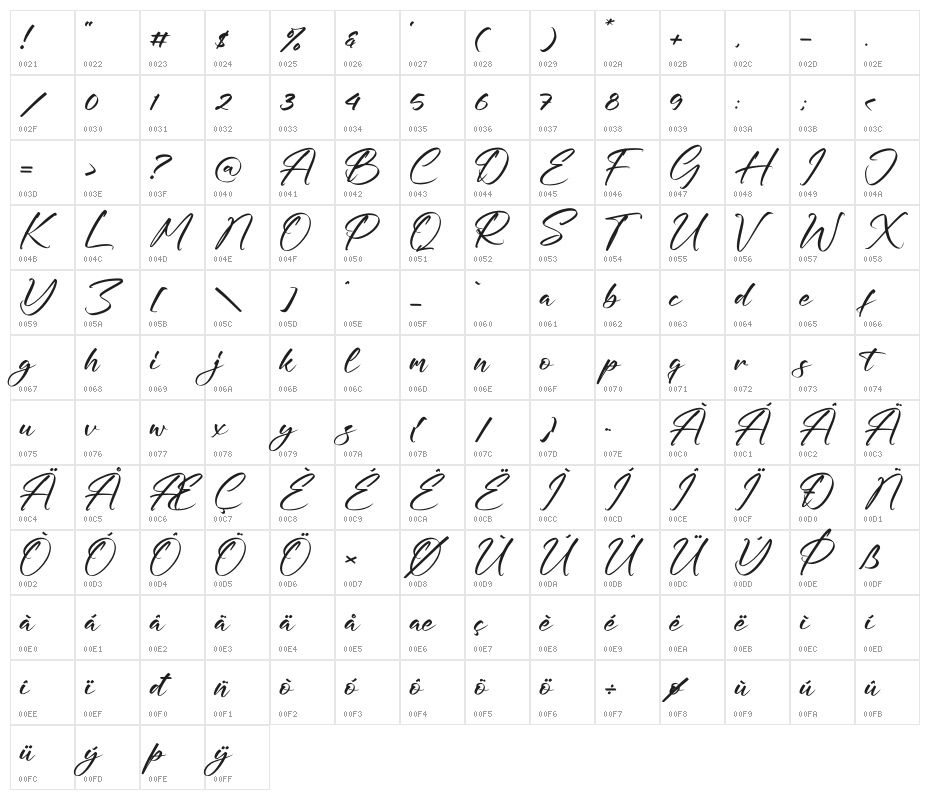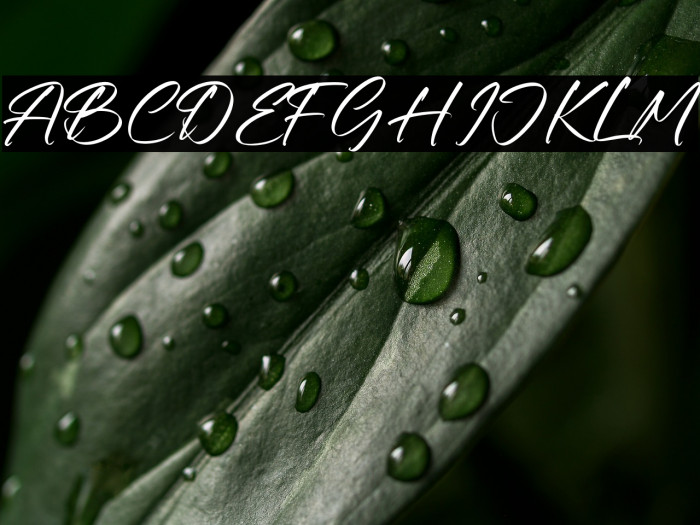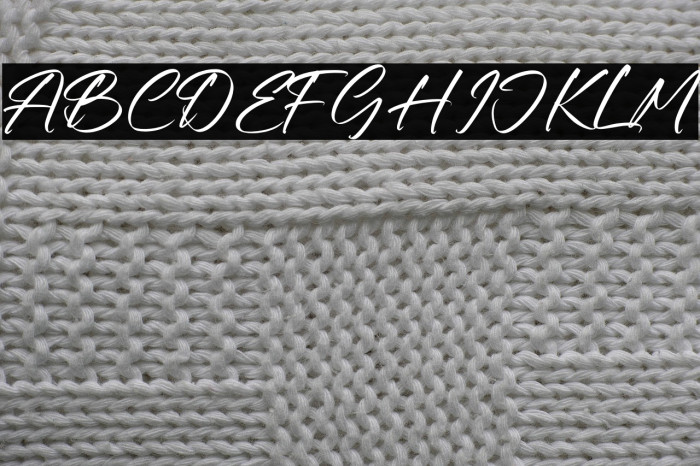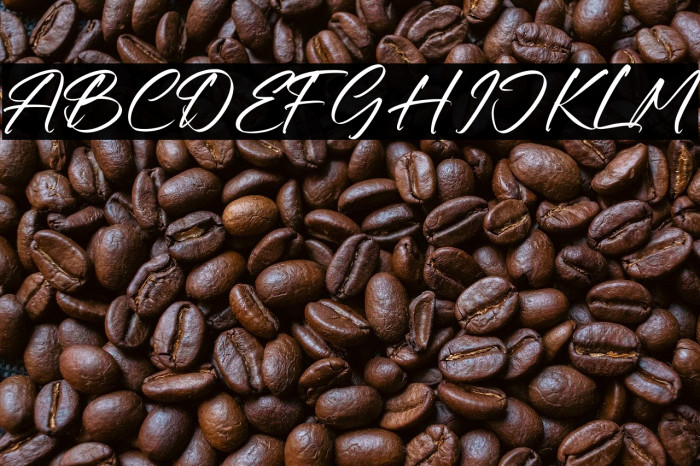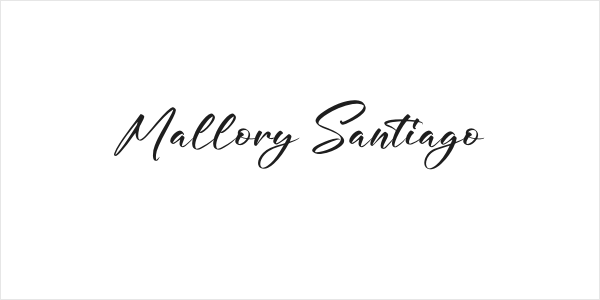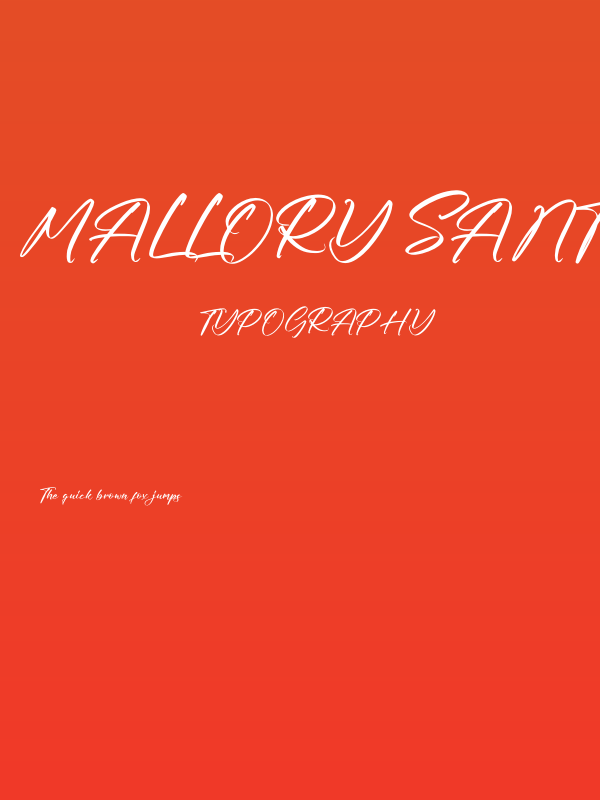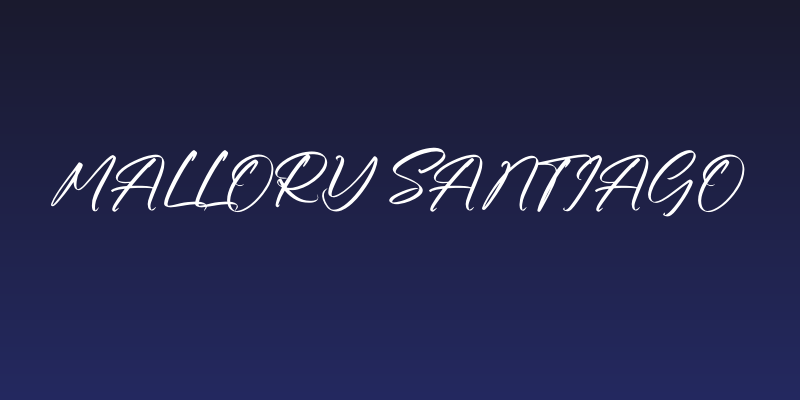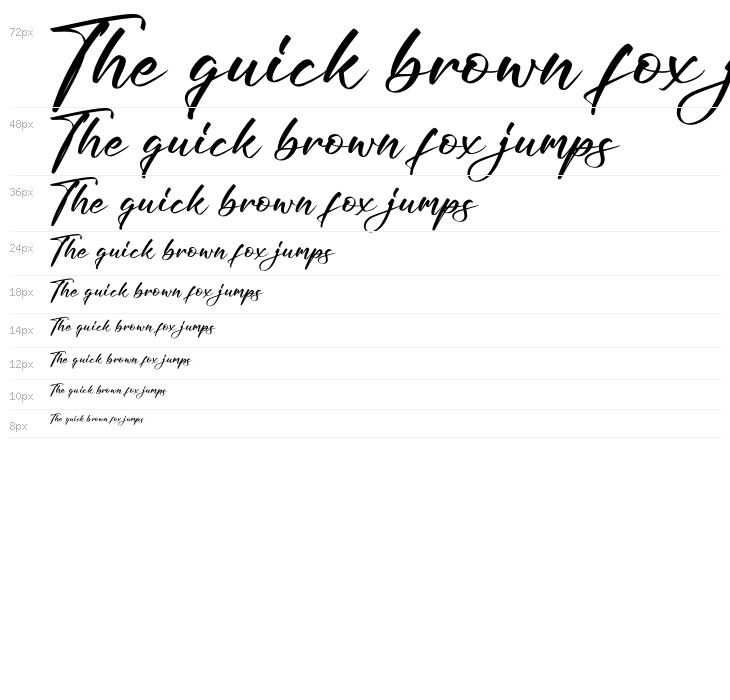
Mallory Santiago Font
Mallory Santiago Description
This elegant script font features fluid, cursive strokes that convey a sense of sophistication and grace. The uppercase letters are characterized by sweeping lines and loops, while the lowercase letters maintain a consistent flow with a slightly more compact form. The numerals are designed with a similar flair, ensuring a cohesive appearance across all characters. Special characters are thoughtfully integrated, maintaining the font's overall aesthetic. This font is perfect for projects that require a touch of elegance and personal style.
| Proposed Projects | Ideal for wedding invitations, branding, greeting cards, and elegant logos. |